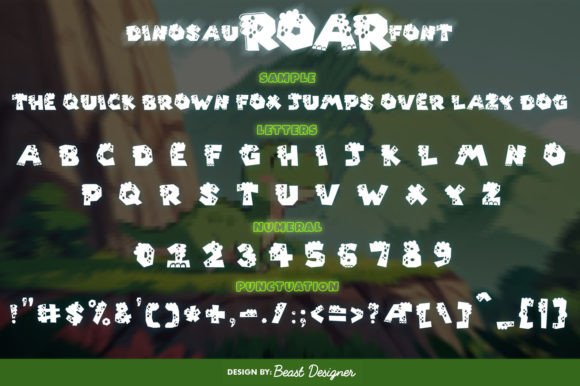
Dinosaur Roar Font: Unleash the Prehistoric Power of Your Text!
Are you looking for a font that can add a playful, adventurous feel to your projects? Do you want to transport your audience back to the age of the giants? Look no further than the Dinosaur Roar Font! This bold, rugged typeface is inspired by ancient fossils and rocky terrains, making it perfect for kids’ projects, educational materials, and themed parties.
The Inspiration Behind Dinosaur Roar Font
The Dinosaur Roar Font is a creative interpretation of the ancient world. Its design is inspired by the fossils of prehistoric creatures and the rugged landscapes they inhabited. The font’s bold, chunky letters are reminiscent of rocky terrains, while its playful curves and edges evoke the sense of movement and energy of the dinosaurs.
Perfect for Kids’ Projects and Educational Materials
The Dinosaur Roar Font is an excellent choice for kids’ projects and educational materials. Its playful, adventurous feel makes it perfect for:
- Creating eye-catching posters and banners for dinosaur-themed events or exhibitions
- Designing engaging educational materials, such as worksheets, activity sheets, and textbooks
- Developing logos and branding materials for kids’ entertainment and educational businesses
- Crafting headlines and titles for kids’ publications and websites
Ideal for Themed Parties and Events
The Dinosaur Roar Font is also perfect for themed parties and events. Its bold, rugged design makes it an excellent choice for:
- Creating invitations and decorations for dinosaur-themed birthday parties
- Designing banners and signs for dinosaur exhibits and museum events
- Developing logos and branding materials for themed events and parties
Key Features of Dinosaur Roar Font
The Dinosaur Roar Font has several key features that make it an excellent choice for designers and crafters:
- Bold and rugged design: The font’s bold, chunky letters are perfect for creating eye-catching headlines and titles
- Playful curves and edges: The font’s playful curves and edges evoke the sense of movement and energy of the dinosaurs
- Inspired by ancient fossils and rocky terrains: The font’s design is inspired by the fossils of prehistoric creatures and the rugged landscapes they inhabited
- Perfect for kids’ projects and educational materials: The font’s playful, adventurous feel makes it perfect for kids’ projects and educational materials
How to Use Dinosaur Roar Font
Using the Dinosaur Roar Font is easy! Here are a few tips to get you started:
- Pair it with other fonts: Pair the Dinosaur Roar Font with other fonts to create a unique and eye-catching design
- Use it for headlines and titles: Use the Dinosaur Roar Font for headlines and titles to add a playful, adventurous feel to your project
- Experiment with colors and textures: Experiment with different colors and textures to add depth and interest to your design
The Dinosaur Roar Font is a bold, rugged typeface that is perfect for kids’ projects, educational materials, and themed parties. Its playful, adventurous feel makes it an excellent choice for designers and crafters who want to add a prehistoric touch to their work. With its inspiration from ancient fossils and rocky terrains, the Dinosaur Roar Font is sure to unleash the prehistoric power of your text!